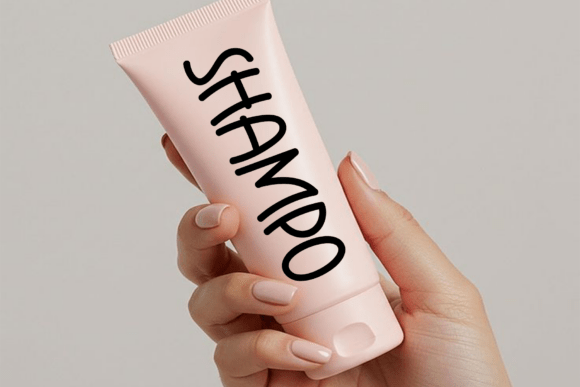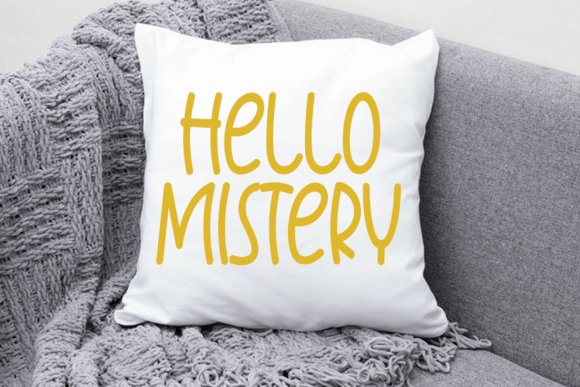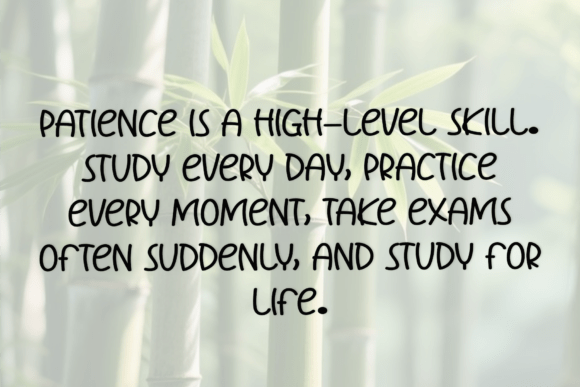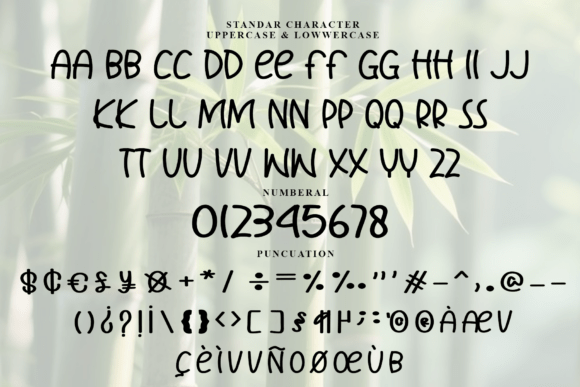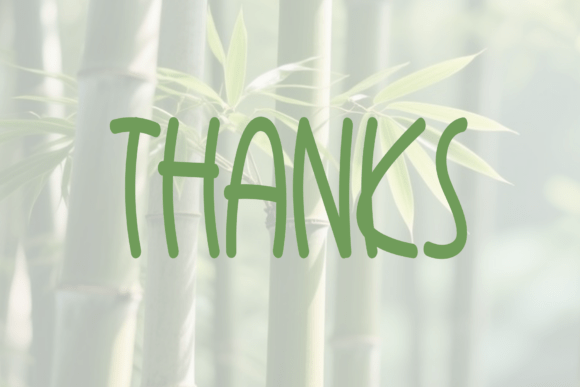
Bamboo Font: Elevate Your Designs with Organic Charm and Typographic Flair
Are you on the hunt for a font that embodies the perfect blend of organic charm and strong typographic presence? Look no further than Bamboo Font. This stylish handwritten typeface is making waves in the design world, and for good reason. With its thick, solid strokes and distinct “bouncy” rhythm, Bamboo exudes a friendly and approachable character that’s sure to capture the hearts of designers and crafters alike.
A Unique and Professional Collection
Bamboo Font is part of the “Unique and Professional” collection, a curated selection of typefaces designed to help creatives stand out from the crowd. What sets Bamboo apart is its well-balanced proportions, which ensure it remains impactful even in busy designs. Whether you’re working on outdoor lifestyle branding, organic product packaging, travel-themed graphics, or rustic event invitations, Bamboo is the perfect choice for projects that need a “smart” and adventurous handmade look.
The Characteristics of Bamboo Font
So, what makes Bamboo Font so special? Let’s take a closer look at its key characteristics:
- Thick, solid strokes: Bamboo’s bold strokes give it a sturdy, dependable feel that’s perfect for headlines, titles, and short phrases.
- Distinct “bouncy” rhythm: The font’s unique rhythm adds a playful touch, making it ideal for designs that need a bit of personality.
- Well-balanced proportions: Bamboo’s carefully crafted proportions ensure it remains legible and visually appealing, even at smaller sizes.
- Organic charm: The font’s handmade feel and natural, earthy vibe make it perfect for designs that require a touch of whimsy and charm.
Perfect for Outdoor and Travel-Themed Designs
Bamboo Font is a natural fit for outdoor and travel-themed designs. Its earthy, organic feel and adventurous vibe make it perfect for:
- Outdoor lifestyle branding: Use Bamboo to create bold, eye-catching logos and marketing materials for outdoor gear companies, hiking trails, or eco-tourism operators.
- Travel-themed graphics: Add a touch of wanderlust to your travel brochures, posters, and social media graphics with Bamboo’s unique charm.
- Rustic event invitations: Create memorable and stylish invitations for outdoor weddings, camping trips, or music festivals with Bamboo’s handmade feel.
Tips for Using Bamboo Font Effectively
To get the most out of Bamboo Font, here are some expert tips:
- Pair with contrasting fonts: Combine Bamboo with cleaner, sans-serif fonts to create visual interest and hierarchy.
- Experiment with colors: Try pairing Bamboo with earthy tones, such as olive green, terracotta, or sky blue, to enhance its organic feel.
- Use for headlines and titles: Bamboo’s bold strokes and playful rhythm make it perfect for grabbing attention and adding personality to your designs.
Bamboo Font is a game-changer for designers and crafters looking to add a touch of organic charm and typographic flair to their projects. With its unique blend of bold strokes, playful rhythm, and well-balanced proportions, Bamboo is the perfect choice for outdoor lifestyle branding, travel-themed graphics, and rustic event invitations. Whether you’re a seasoned pro or just starting out, Bamboo Font is sure to inspire your creativity and take your designs to the next level.